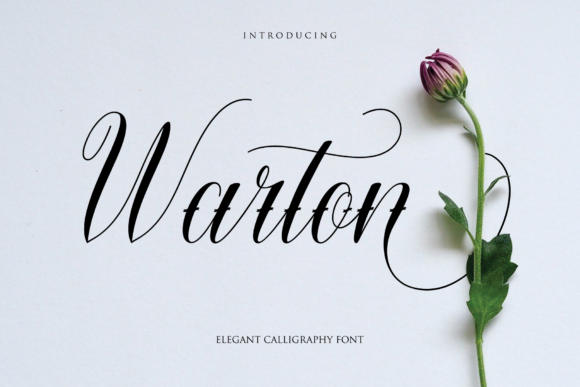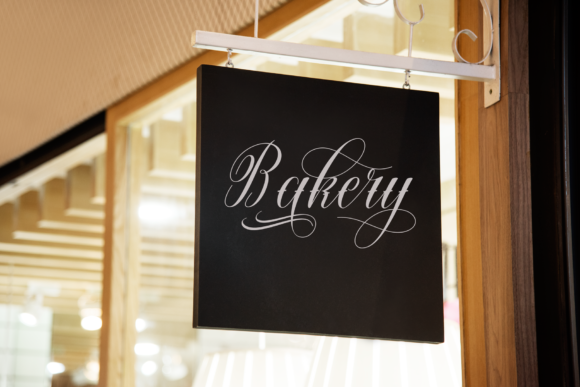
About Warton Font
Warton is an elegant calligraphy font. It looks stunning on wedding invitations, thank you cards, quotes, greeting cards, logos, business cards and every other design which needs a handwritten touch.